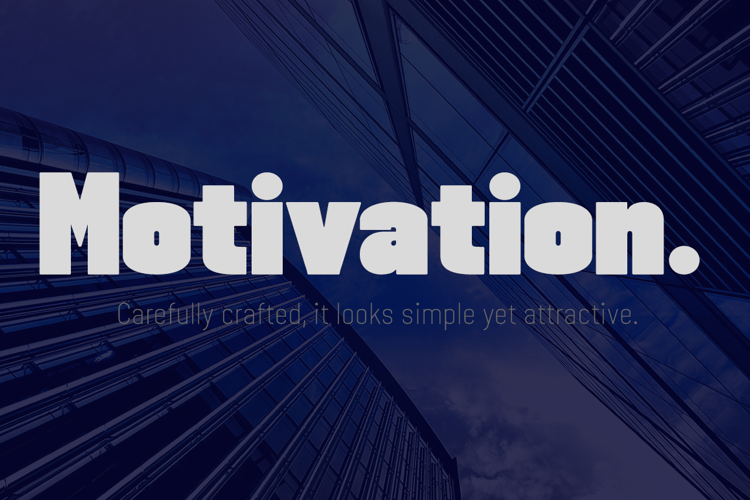
Motivation
Introducing Motivation Sans Serif
Motivation Sans Serif is a new modern font. Motivation Sans Serif is perfect for stationery, logos, t-shirts, paper, print designs, website headers, photo frames, leaflets, music covers, posters, image sliders and more.